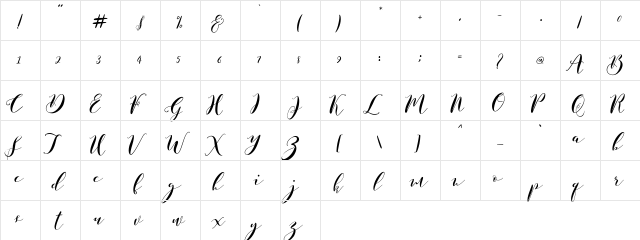
Paduka Script free version Regular
Design Context for Paduka Script free version Typeface
Paduka Script free version flows with the natural rhythm of handwritten lettering, making it ideal for designs that call for warmth and personal expression.
Font Pairing: Combine Paduka Script free version with a simple geometric sans for maximum contrast — the tension between flowing curves and clean structure is a classic typographic pairing.
Pro Tip: Use Paduka Script free version for short runs of text — names, titles, or taglines. Extended body copy in script faces tires the eye quickly.